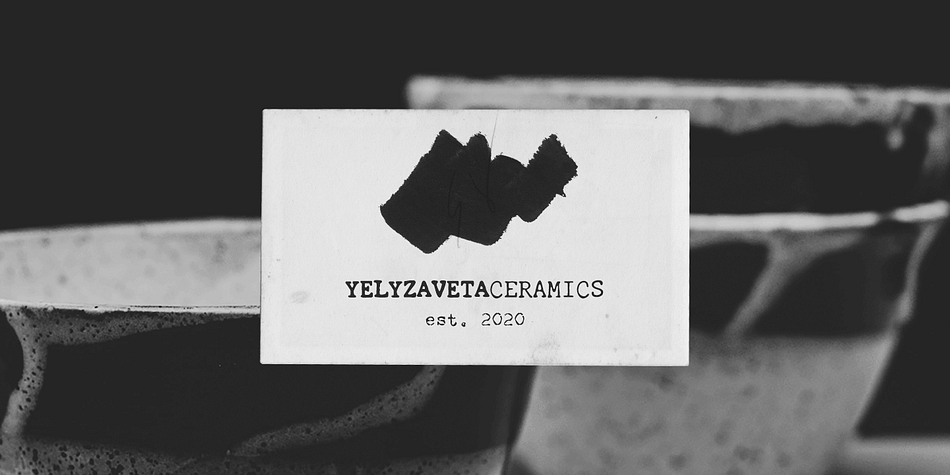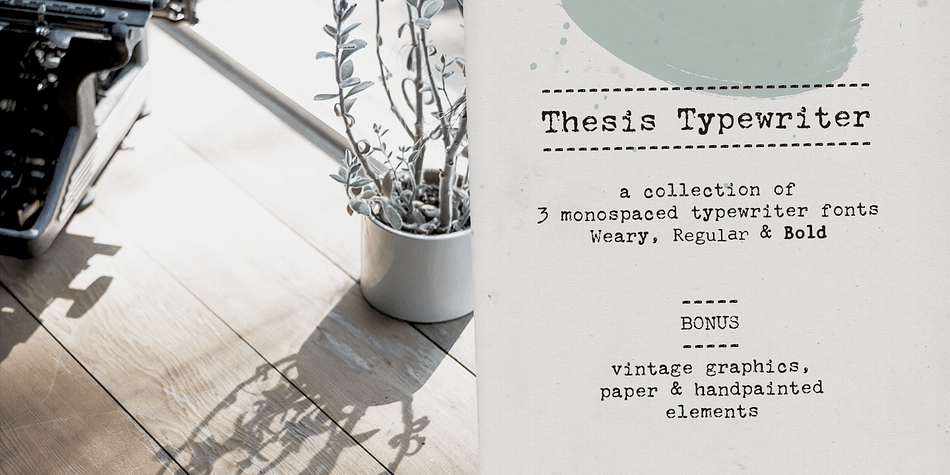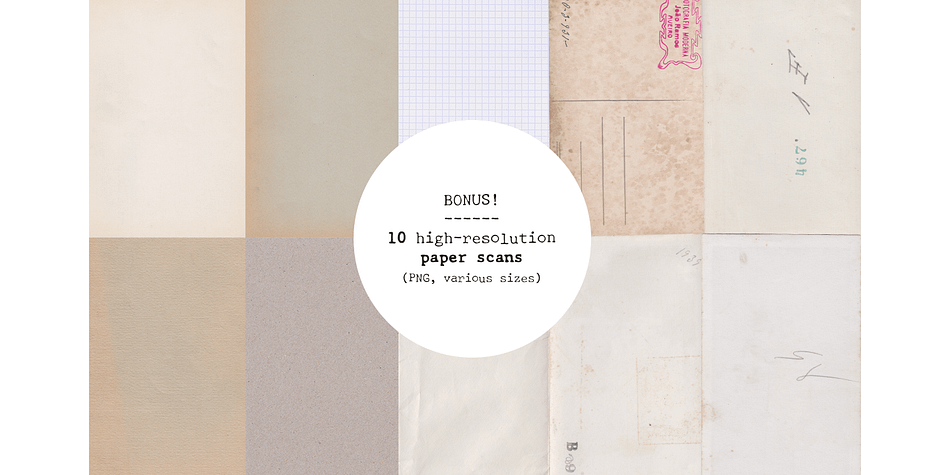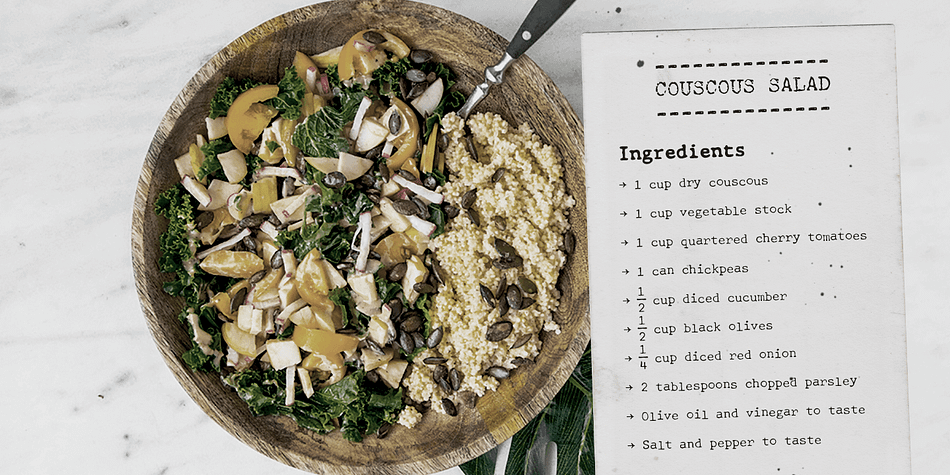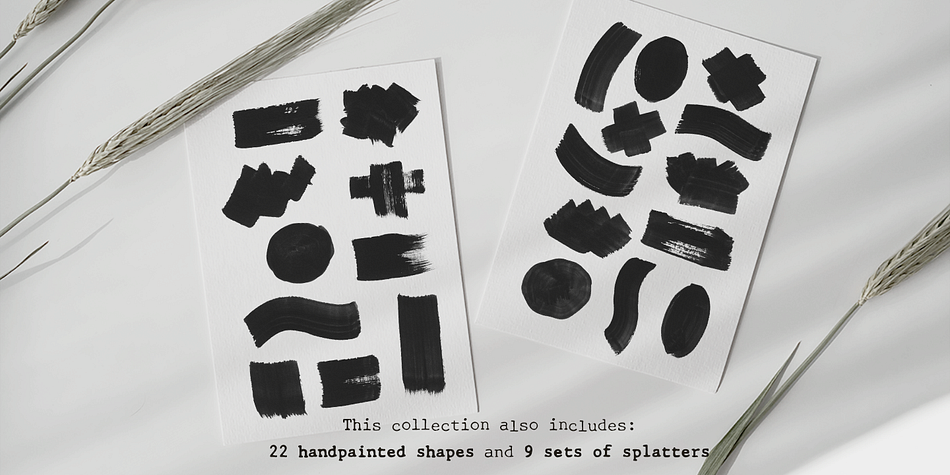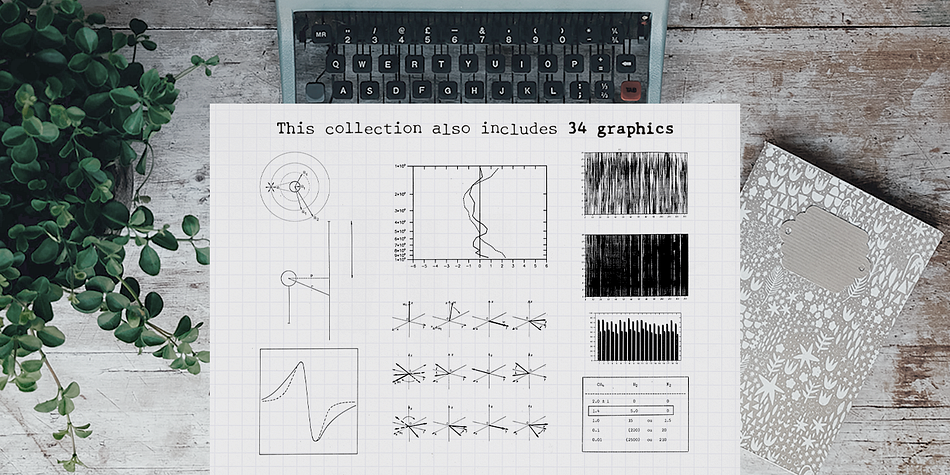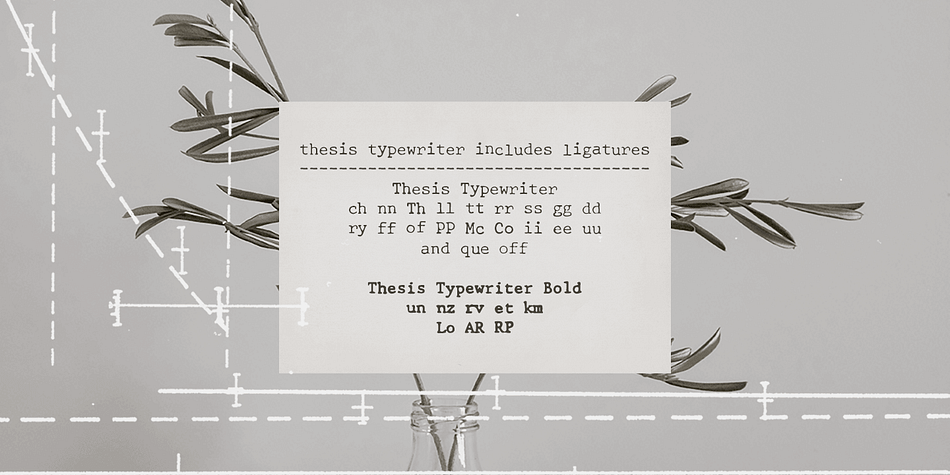
Designed by Ana Parracho, Thesis Typewriter is a typewriter font family. This typeface has three styles and was published by Ana's Fonts.
Thesis typewriter is a typewriter font and extras collection that includes 3 different typewriter fonts, paper textures, hand-painted shapes and vintage science graphics. This collection includes all that you need for authentic vintage designs and digital collages, but will also look great in modern logo design, in branding and packaging. The fonts are perfect for short quotes (in social media posts, for instance) and longer texts (such as recipes and blog posts).
This set includes:
- 3 different typewriter fonts, sampled from three different thesis and reports from the 60s and 70s. Thesis Typewriter Weary has a textured look, while Thesis Typewriter and Thesis Typewriter Bold are smooth and include math symbols and Greek letters that will look great in digital collages.